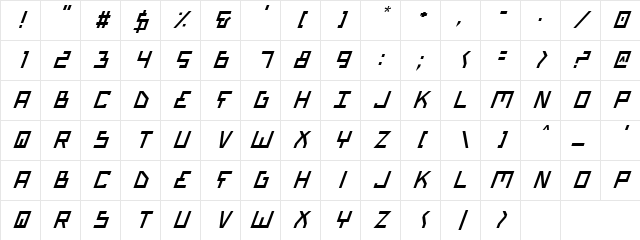
Bionic Type Italic Italic Free Font
Bionic Type Italic Italic
Design Context for Bionic Type Italic
Bionic Type Italic is a composed and adaptable typeface that performs quietly and consistently across a wide range of design contexts. The slanted form adds forward momentum and visual energy.
Pro Tip: Use Bionic Type Italic for emphasis, pull quotes, and subheadings where its slanted energy can add rhythm to the layout.